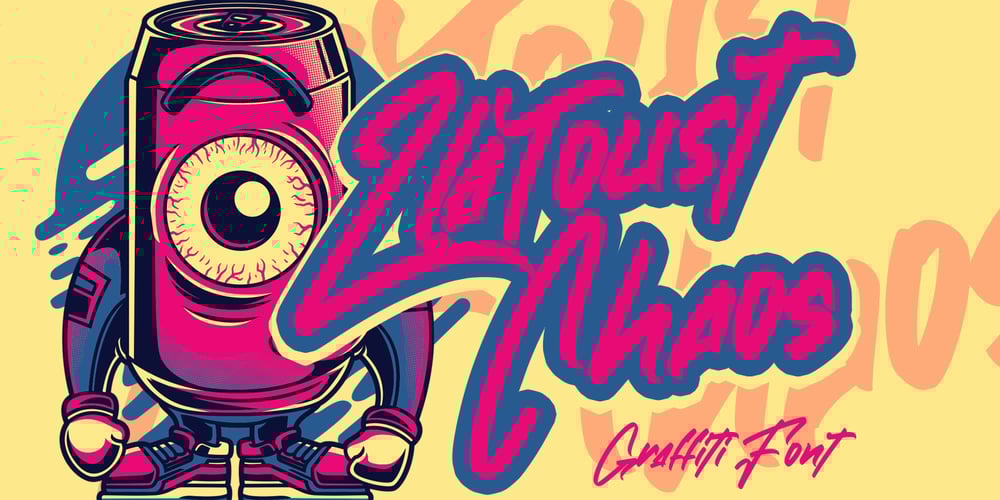
Zlatoust Chaos
Zlatoust Chaos font
Zlatoust Chaos Font Family was designed by Asep Rendi and published by Arendxstudio. Zlatoust Chaos contains 2 styles and family package options. latoust Chaos is a free style font that has the characteristics of street art that shows freedom and is filled with unique charactersFeatures : • Character Set A-Z • Numerals & Punctuations (OpenType Standard) • Accents (Multilingual characters) • Ligature • AlternateThere it is! I really hope you enjoy it – comments & likes are always welcome and accepted. More importantly, don’t hesitate to send a message if you have a problem or question.